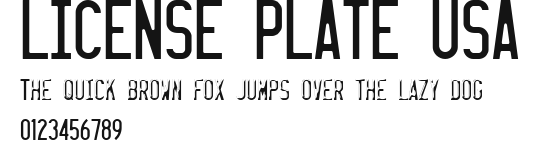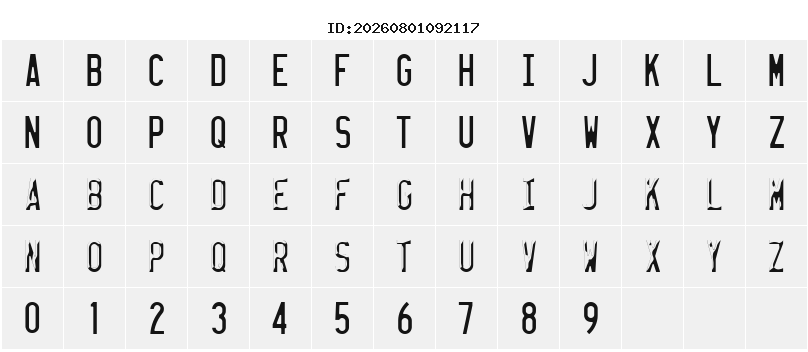
• Font Name: LICENSE PLATE USA
• Designer: SpideRaY
About LICENSE PLATE USA.ttf
LICENSE PLATE USA.ttf is a modern, elegant sans-serif font designed for ultimate readability and visual harmony. Perfect for branding, headlines, web design, and print materials.